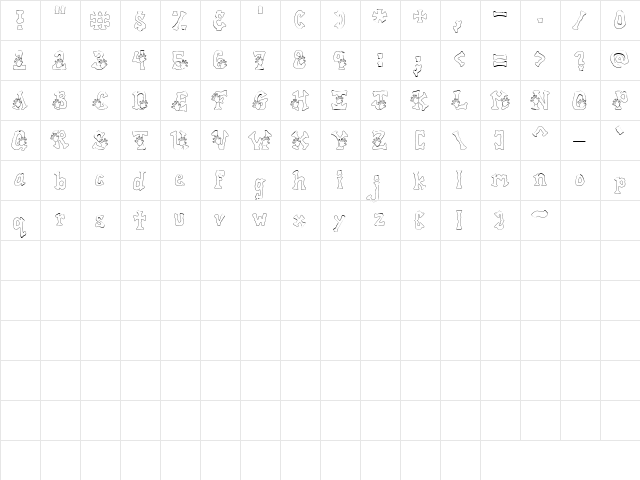
CK Hands On Regular Font Preview
CK Hands On Regular
Design Context for CK Hands On Typeface
CK Hands On flows with the natural rhythm of handwritten lettering, making it ideal for designs that call for warmth and personal expression.